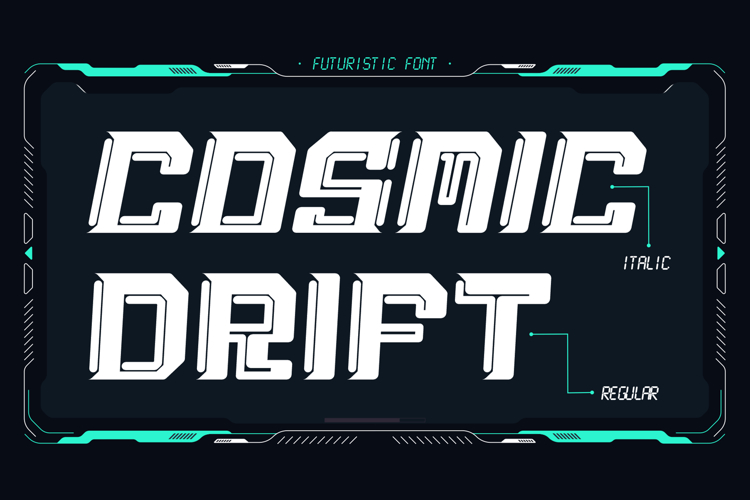
Cosmic Drift - Modern Futuristic Typeface
Cosmic Drift is a futuristic display font designed with angular precision and high-tech visual energy. Built to convey speed, movement, and modern engineering, this font comes in Regular and Italic styles, giving designers the flexibility to express strength or acceleration within a single family.
The design features sharp modular cuts and aerodynamic forms reminiscent of sci-fi technology, mech mechanics, and advanced digital systems. Each character carries a dynamic forward motion, especially in the Italic version, making the font perfect for high-impact titles and modern digital visuals.
Cosmic Drift includes uppercase characters, numbers, punctuation, and multilingual support, ensuring compatibility for global design use. Its bold construction makes it suitable for large-scale display applications, from posters to esports branding, while its geometric clarity keeps it readable across various layouts.
Cosmic Drift stands out for its crisp angles, clean geometry, and strong visual direction. The two-style format makes it easy to create balanced layouts—Regular offering stability and Italic delivering speed and motion. This makes the font suitable for professional digital creators who need a typeface with futuristic presence and versatile performance.
Whether you’re designing game graphics, constructing tech interfaces, or building promotional artwork with a modern sci-fi aesthetic, Cosmic Drift adds the perfect futuristic tone to every project.